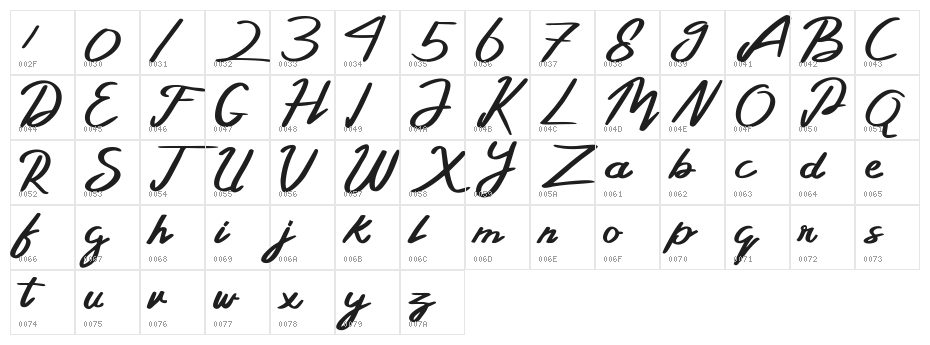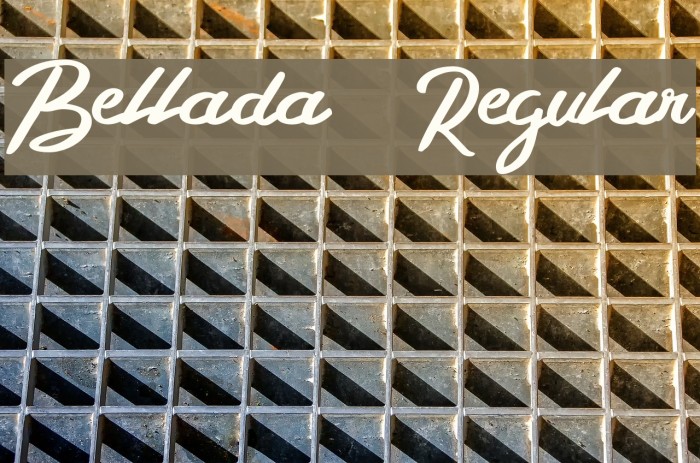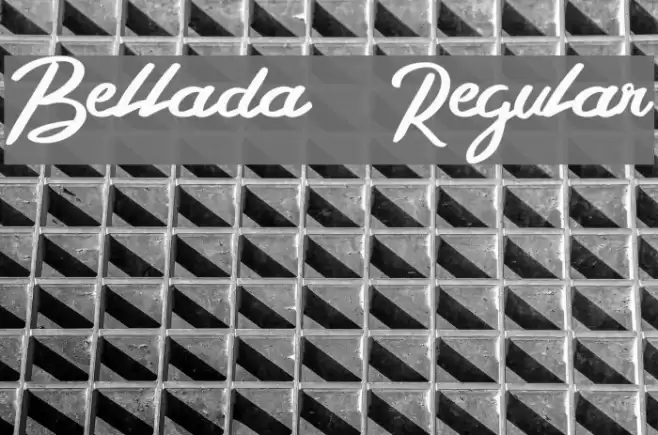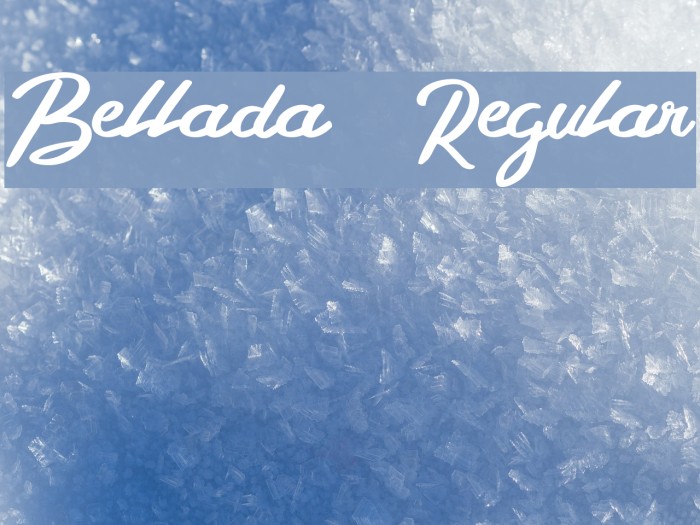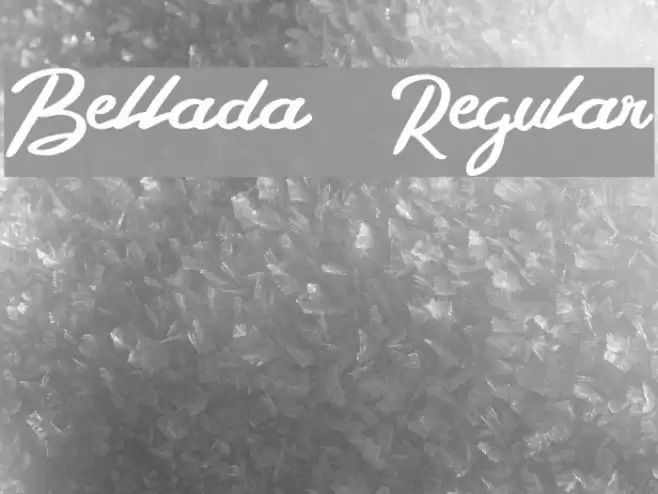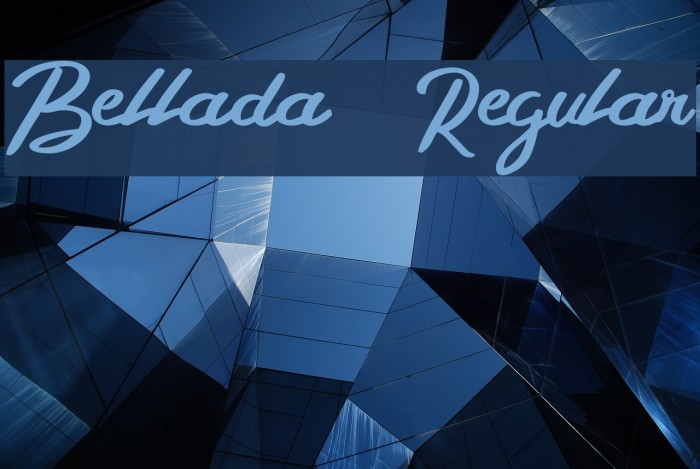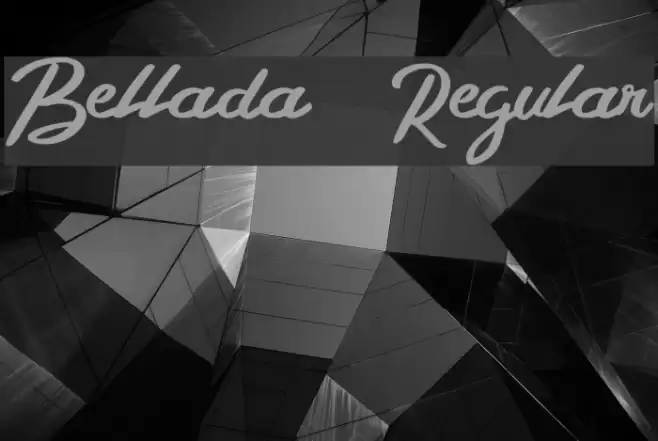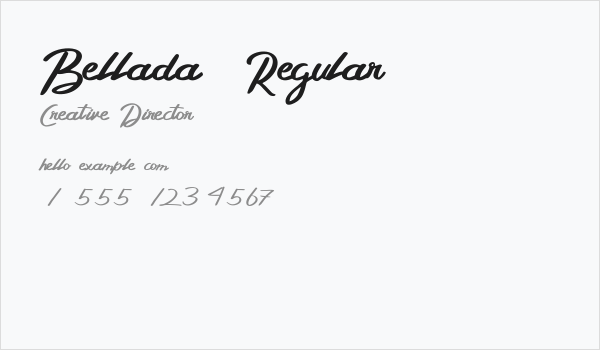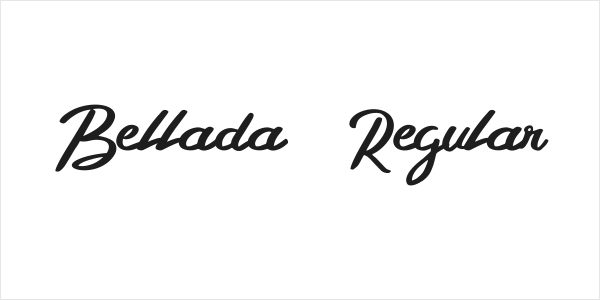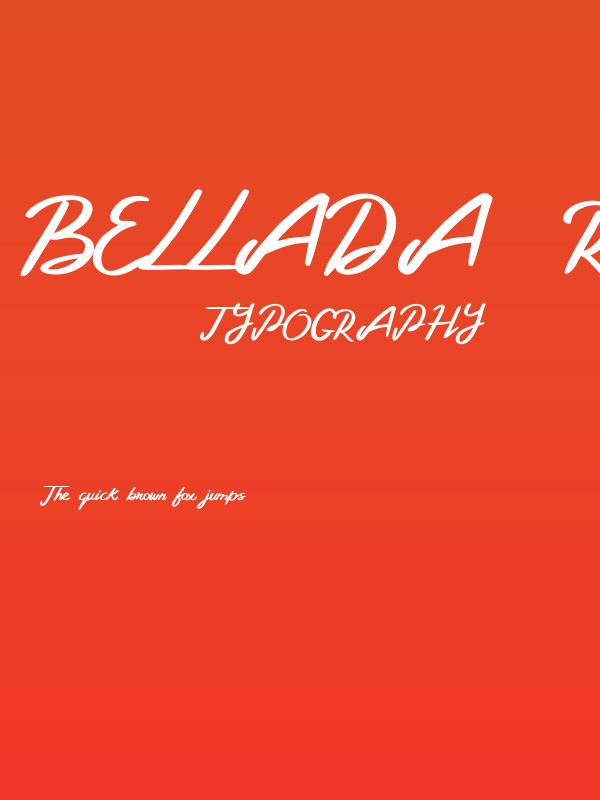
Bellada Regular Font
Bellada Regular Description
This font features a flowing, cursive style with elegant, sweeping strokes that give it a handwritten appearance. The uppercase letters are bold and dynamic, with a slight slant that adds to the sense of motion. The lowercase letters maintain a consistent style, with rounded forms and smooth connections between characters. The numerals are distinctive, maintaining the same cursive flair as the alphabet. Overall, the font exudes a sense of sophistication and creativity, making it suitable for projects that require a personal touch.
| Proposed Projects | Ideal for wedding invitations, greeting cards, personal branding, and artistic projects. |